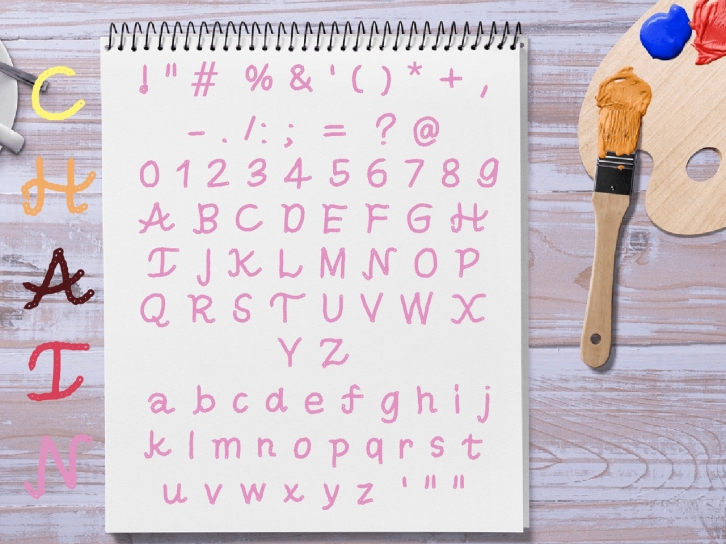
font design in the form of writing letters that is a letter In the form of small ovals connected together like a small chain. Come in alphabetical order You can use it in your letter, greeting card design, wedding card, etc. Make your letters look different.